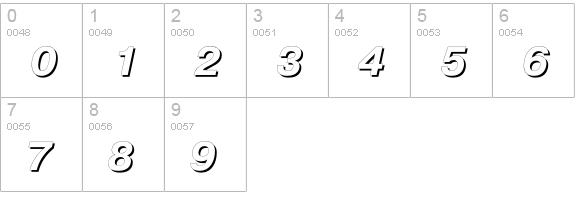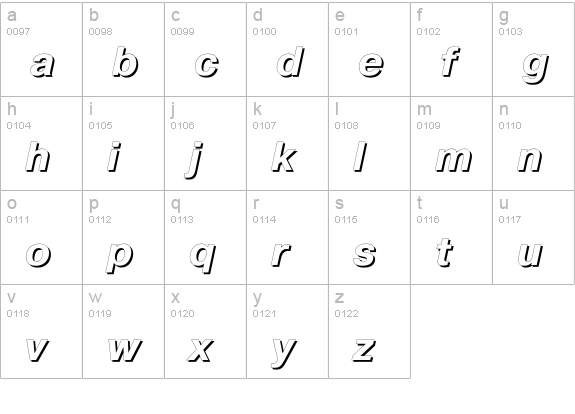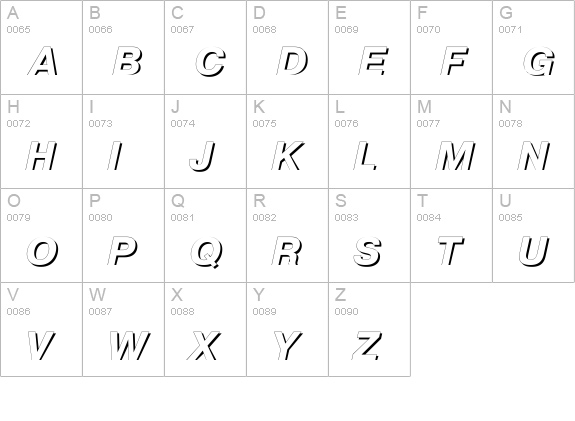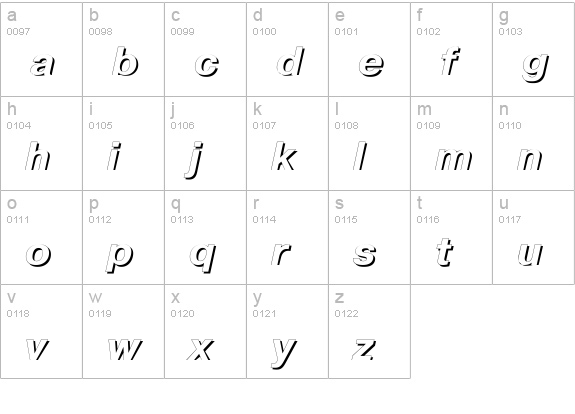
PT PragmaticaShadow BoldItalic Cyrillic Font Details
PT PragmaticaShadow BoldItalic Cyrillic font is a stunning typeface that exudes sophistication and elegance. Its bold and italic design adds a touch of drama to any project, making it perfect for titles, headlines, and other eye-catching text. The Cyrillic characters are expertly crafted, ensuring clear legibility and aesthetic appeal. And the best part? This exquisite font is available for free download at FontsMarket.com. Take advantage of this fantastic opportunity to enhance your designs with the beauty and versatility of PT PragmaticaShadow BoldItalic Cyrillic font. Elevate your projects with this unique typeface that is sure to leave a lasting impression on your audience.